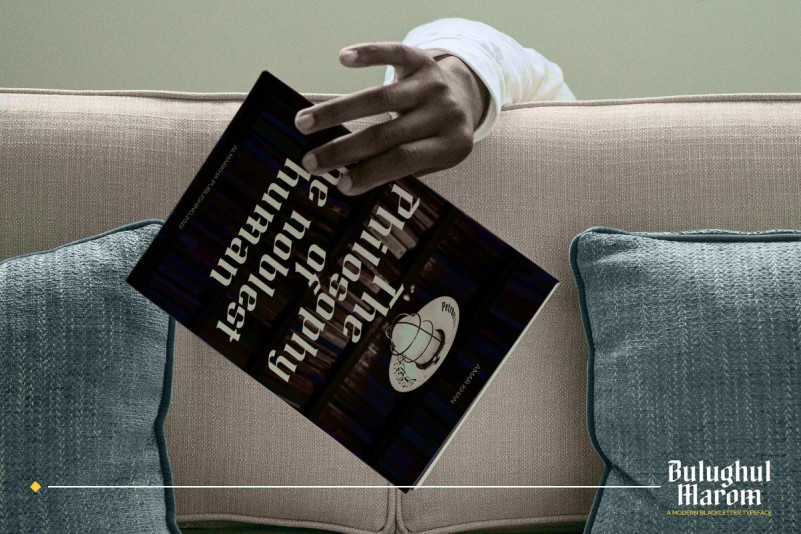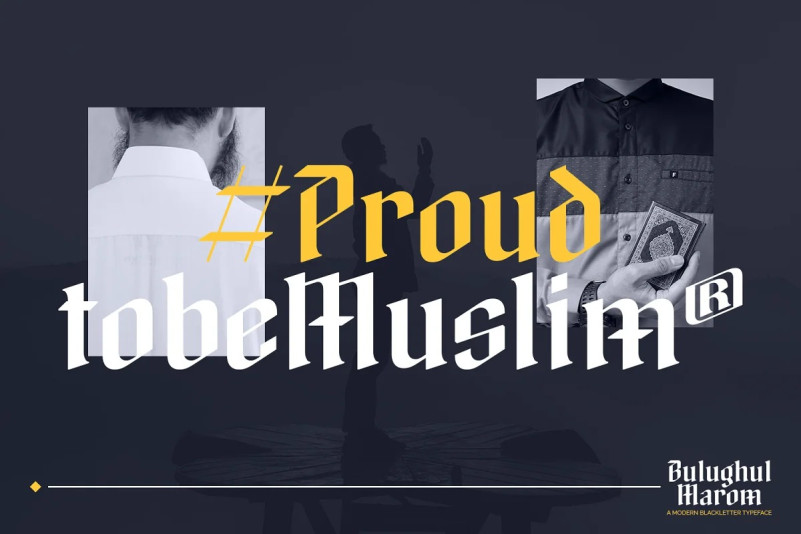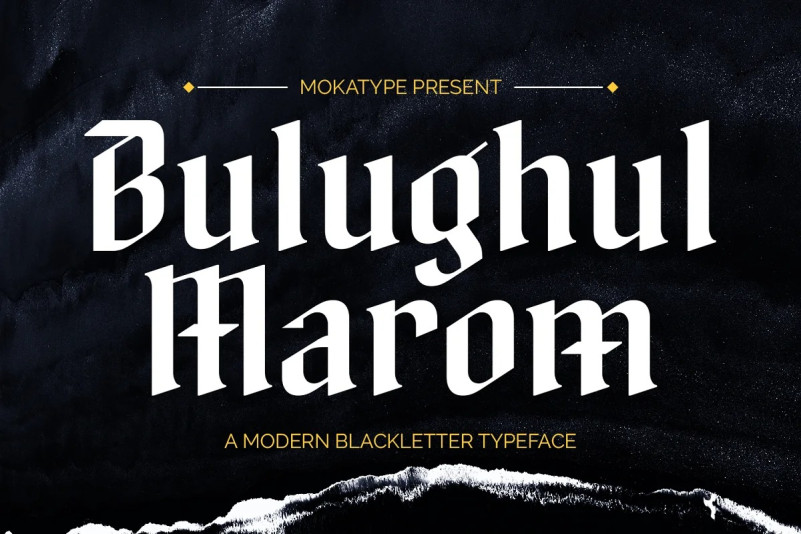
Bulughul Marom Font
Hello Introducing, Bulughul Marom Blackletter Font – Our new collection of modern display fonts inspired by Blackletter calligraphy with strong character and sharp edge suitable for designing logos, templates, brochures, videos, advertising branding, and more. BulughulMarom font with strong and challenging nuances. Very suitable for headlines, typography, Poster, magazines, brochures, packaging, Websites, and much more for your design needs, making your designs more modern and professional looks as vintage modern. What’s Included: